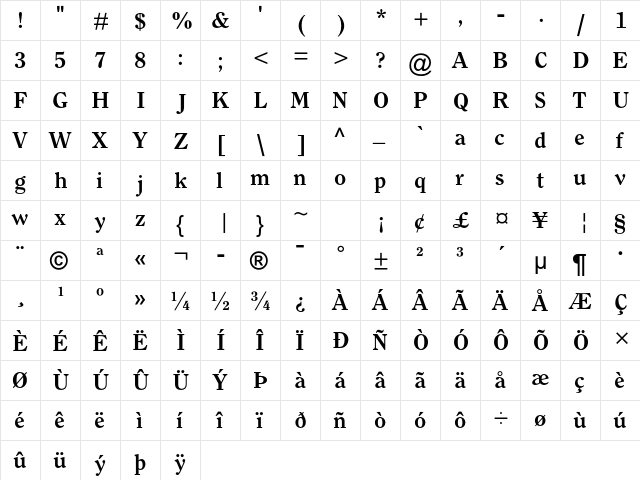
Clearface MT Std Bold Font Preview
Clearface MT Std Bold
Clearface MT Std Bold Font Details
Design Context for Clearface MT Std Typeface
Clearface MT Std offers clean, dependable letterforms without strong stylistic allegiance, making it a practical choice for designers who need flexibility. Its bold stroke weight gives it real presence on the page.